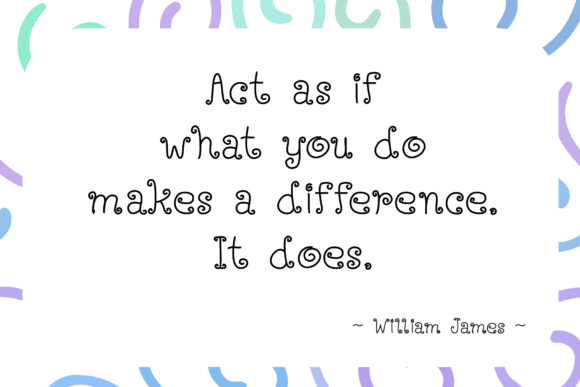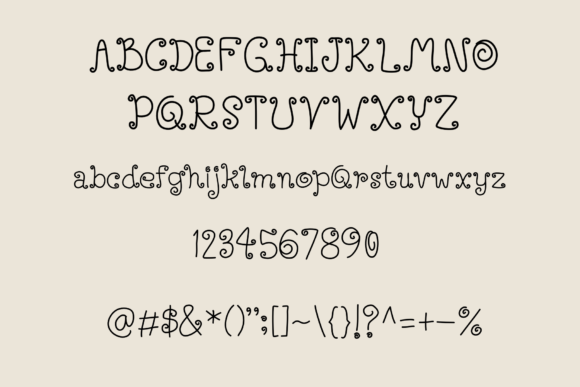
Curly Font
About Curly Font
Curly is an elegant and incredibly unique handwritten font. It is cute and friendly, and as a result, it matches a wide range of design ideas, both formal and informal.